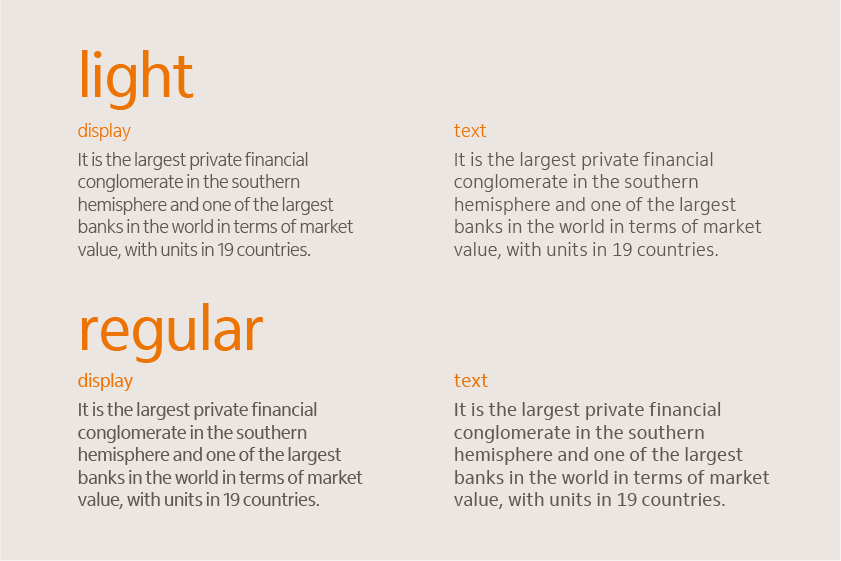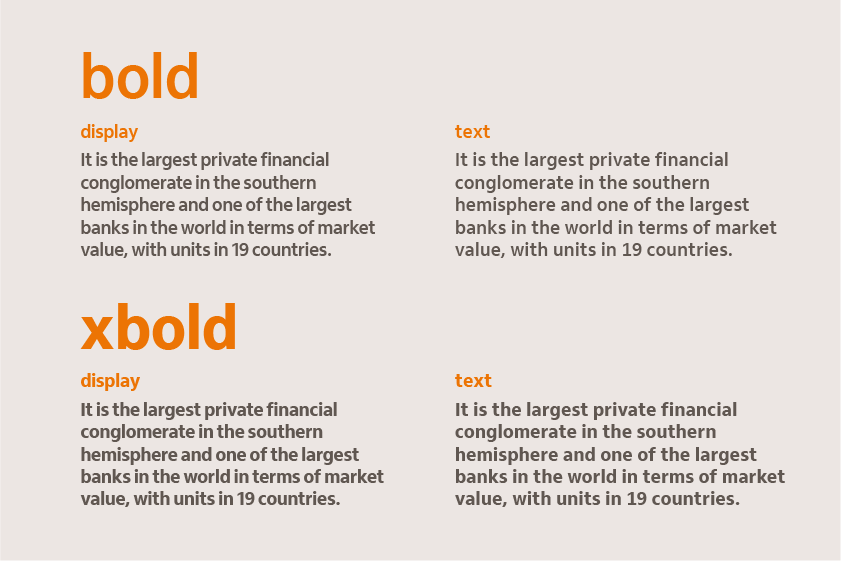
Brazilian bank follows custom typeface trend
Following big brand such as Airbnb and YouTube, Itau Unibanco, Brazil’s largest bank, has launched a custom typeface bearing the bank’s name. The new typeface can be used in every aspect of the brand, like presentations, circulars to employees, customer and shareholder collateral and it can be implemented both locally and internationally.
The new typeface was designed by font foundry Dalton Maag, which has also designed the custom typefaces for Amazon and Netflix, to name a few. The new approach offers consistency across the brand’s platforms and creates a strong branding among the bank’s internal and external communications.
Alexander Guazzelli, senior manager of design at Itaú, says, “The idea is to create a typeface for Itaú based on the need for a font with characteristics specific for the digital world without losing sight of its application in other medias.We attach great importance to creating something which transmits maximum legibility, efficiency and reduced heaviness, without sacrificing the characteristics that the existing font (Myriad) brings to the brand such as proximity, lightness and dynamism.”
Itaú’s typeface was produced over 10 months. Before its final release, Itaú’s research team assessed the reception of the new font by 1,200 customers, and tested it with the bank’s employees. Itaú’s research used quantitative analysis, implicit association and semiotics.
The Itaú font offers two variations: display and text. Display was designed to be used in a larger scale, while text was designed for the better adaptation of the font in the brand’s digital touchpoints, especially for mobile, as the letters are more widely spaced.
The decision to adopt a custom typeface, has not only created a strong, consistent brand for the bank that helps customers identify it among its competitors, but also to benefit Itaú financially, eliminating the costs of type licensing.